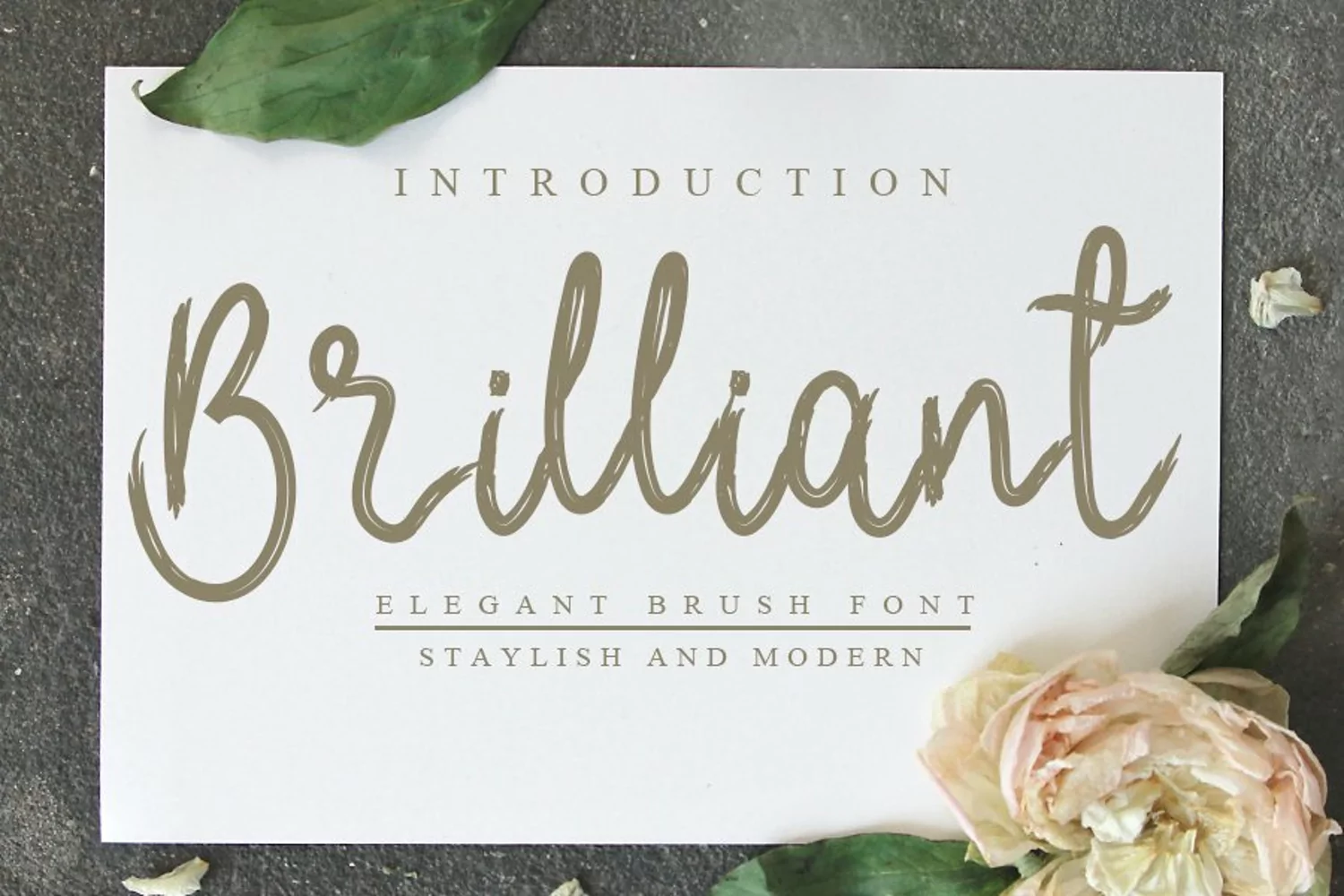
Brilliant
Brilliant is a flowing handwritten font, described by an elegant touch, perfect for your favorite projects. Fall in love with its incredibly distinct and timeless style and use it to create spectacular designs!
+More than 100+ Glyphs
+More than 43 Languages
+PUA-Encoded for many alternates and ligatures